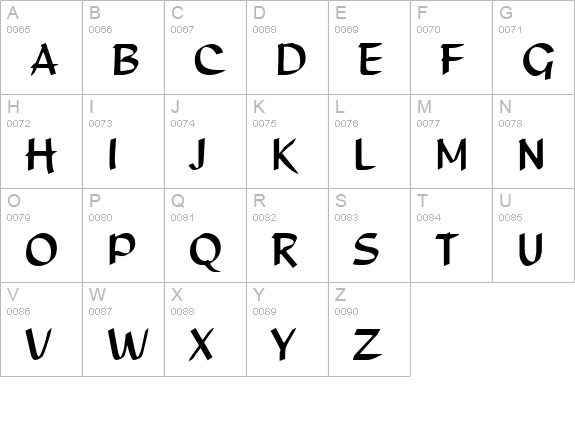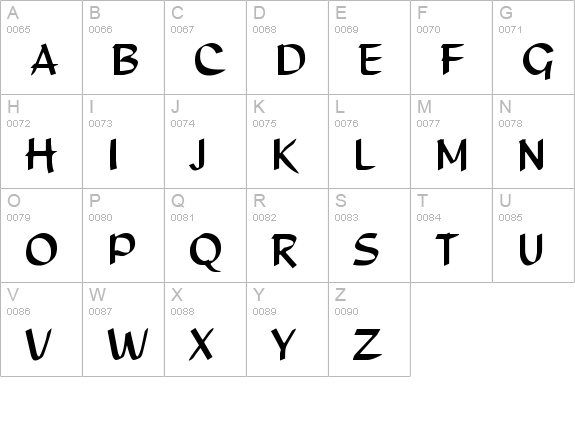
S850-Script-Regular is the standard, neutral variant in the S850 typeface family \xE2\x80\x94 well suited to general body text, paragraphs, and standard typographic work.
The S850-Script-Regular font is a beautifully crafted typeface that exudes elegance and sophistication. Its fluid strokes and graceful curves make it perfect for adding a touch of charm to any design project. Whether you're creating invitations, logos, or signage, this font is sure to make a lasting impression. The best part? S850-Script-Regular is available for free download at FontsMarket.com. This means you can access this stunning font without any cost, allowing you to elevate your designs without breaking the bank. Don't miss out on this opportunity to enhance your creative projects with the timeless beauty of S850-Script-Regular. Download it today and let your creativity shine!